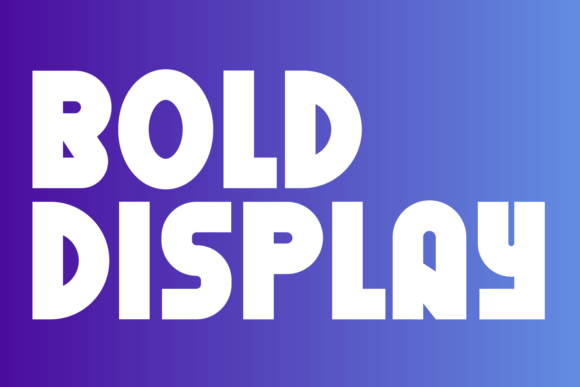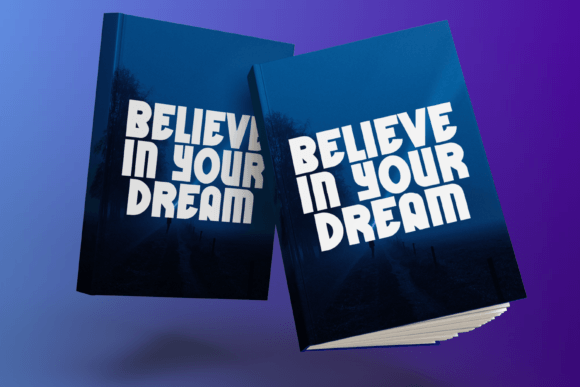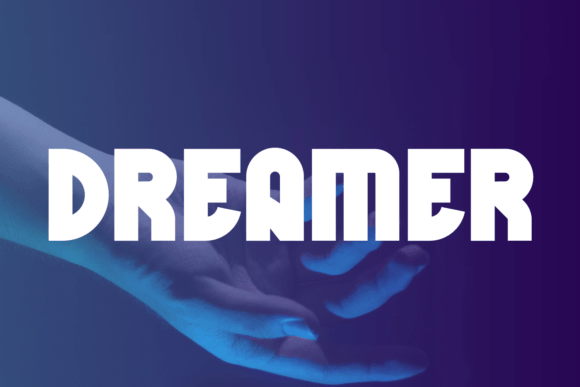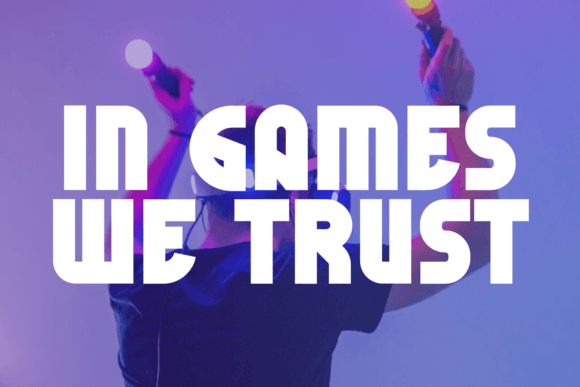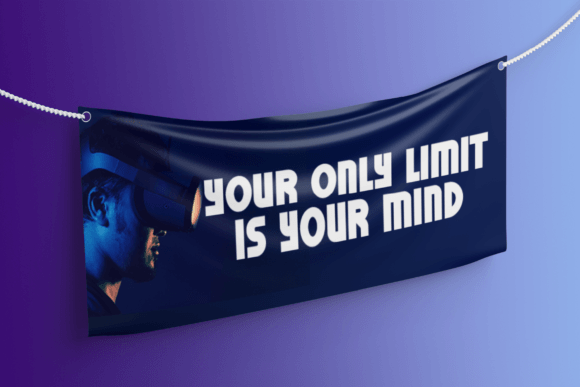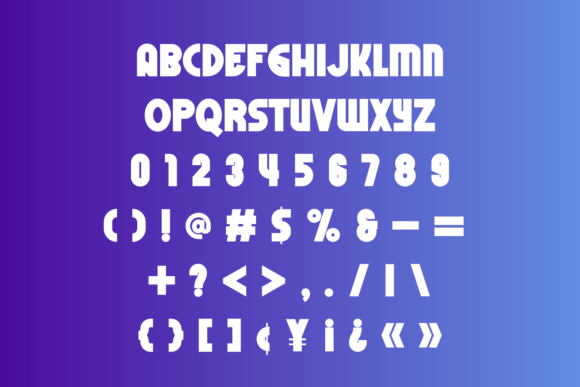
Gryzensa Font: Elevate Your Designs with Elegance and Trendiness
In the world of design, typography plays a crucial role in conveying messages, expressing creativity, and capturing the audience’s attention. When it comes to selecting the perfect font for your project, you want something that not only looks great but also communicates your brand’s personality and style. This is where the Gryzensa font comes into play – an elegant and cool display font that has been making waves in the design community.
What is Gryzensa Font?
Gryzensa is a modern, stylish display font designed to add a touch of sophistication and trendiness to your designs. Its elegant appearance makes it an excellent option for a wide range of design purposes, from logos and branding materials to social media posts, headings, and more. Whether you’re a professional designer, a crafty DIY enthusiast, or a business owner looking to elevate your brand’s visual identity, Gryzensa is an excellent choice.
Key Features of Gryzensa Font
So, what sets Gryzensa apart from other fonts? Here are some of its key features:
- Elegant and Cool Design: Gryzensa boasts a sleek, modern design that exudes elegance and sophistication. Its unique letterforms and curves make it perfect for creating visually stunning designs.
- Trendiness: This font has the perfect amount of trendiness, making it ideal for designers who want to create designs that are both stylish and contemporary.
- Versatility: Gryzensa is incredibly versatile and can be used for a wide range of design purposes, from logos and branding materials to social media posts, headings, and more.
- Easy to Read: Despite its elegant design, Gryzensa is easy to read, making it perfect for use in both digital and print materials.
Use Cases for Gryzensa Font
Gryzensa is an incredibly versatile font that can be used in a variety of design projects. Here are some use cases to get you started:
- Logo Design: Create a stunning logo for your business or brand with Gryzensa. Its elegant design and trendiness make it perfect for creating a memorable and impactful logo.
- Branding Materials: Use Gryzensa to create consistent branding across all your marketing materials, including business cards, brochures, and letterheads.
- Social Media Posts: Add a touch of elegance and sophistication to your social media posts with Gryzensa. It’s perfect for creating eye-catching headings and titles.
- Headings and Titles: Use Gryzensa to create stunning headings and titles for your website, blog, or marketing materials.
Tips for Using Gryzensa Font
Here are some tips to help you get the most out of Gryzensa:
- Experiment with Font Sizes: Gryzensa looks great in various font sizes, so don’t be afraid to experiment and find the perfect size for your design.
- Pair with Other Fonts: Try pairing Gryzensa with other fonts to create a unique and visually appealing design.
- Use in Combination with Images: Gryzensa looks great when used in combination with images, so try experimenting with different image and font combinations.
In conclusion, Gryzensa is an elegant and cool display font that is perfect for designers, crafters, and business owners looking to elevate their designs. Its trendiness, versatility, and ease of use make it an excellent choice for a wide range of design purposes. Whether you’re looking to create a stunning logo, branding materials, or social media posts, Gryzensa is sure to impress. So why wait? Download Gryzensa today and take your designs to the next level!